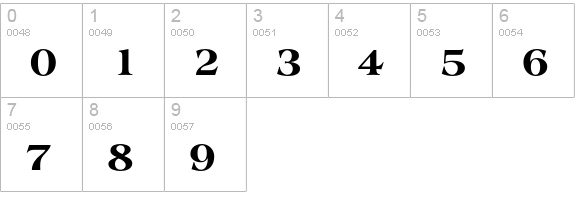
Americana Extra Bold Font Details
Americana Extra Bold is a strong, high-contrast variant in the Americana typeface family \xE2\x80\x94 well suited to headlines, attention-grabbing titles, and strong calls-to-action.
Americana Extra Bold is a visually striking and bold typeface that exudes a sense of strength and confidence. Its thick, heavy lines and sturdy design make it perfect for making a statement in headlines, titles, and other prominent text. This font is ideal for projects that require a strong and impactful visual presence. What sets Americana Extra Bold apart is its versatility and readability, making it suitable for a wide range of applications. Whether you're designing posters, banners, logos, or any other graphic project that needs to command attention, Americana Extra Bold is sure to deliver. The best part? Americana Extra Bold is available for free download at FontsMarket.com, making it accessible to all designers and creatives looking to add a bold and powerful touch to their work. Don't miss out on this fantastic font that combines style, strength, and readability in one powerful package.